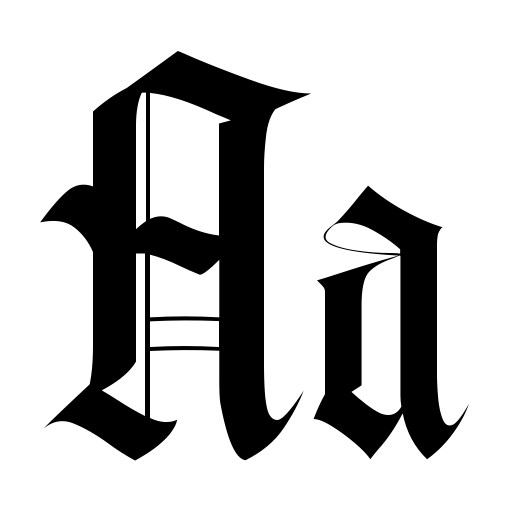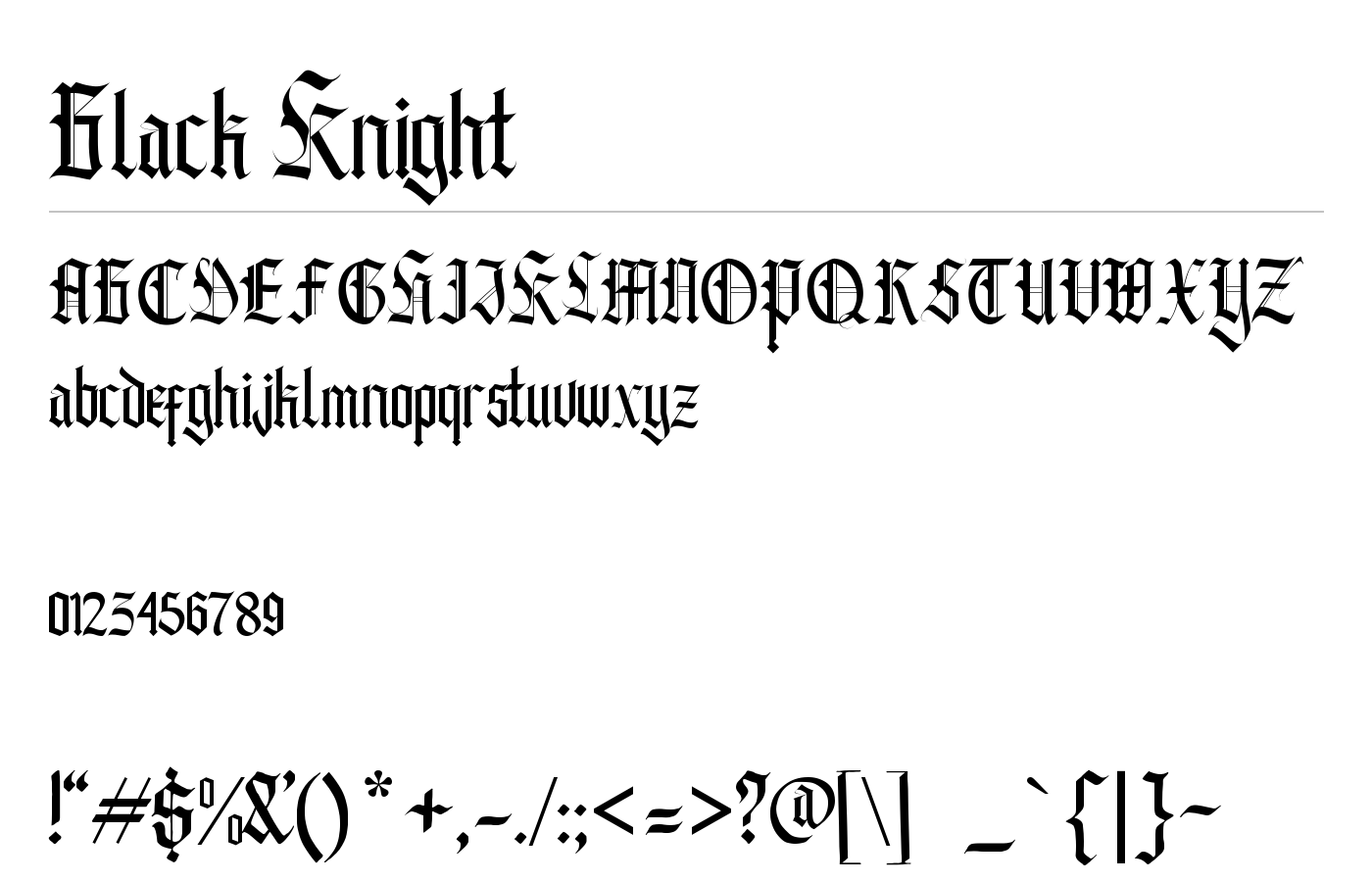
Black Knight is a bold blackletter serif font that channels a strong medieval and gothic vibe through its sharp, angular strokes and high contrast between thick and thin lines. Its condensed letterforms and intricate details make it perfect for creating dramatic headlines, logos, or designs that seek a historic, mysterious, or powerful personality. This font works best in decorative uses where its unique style can stand out, adding a sense of tradition and bold elegance.
Black Knight Font
About Black Knight Font